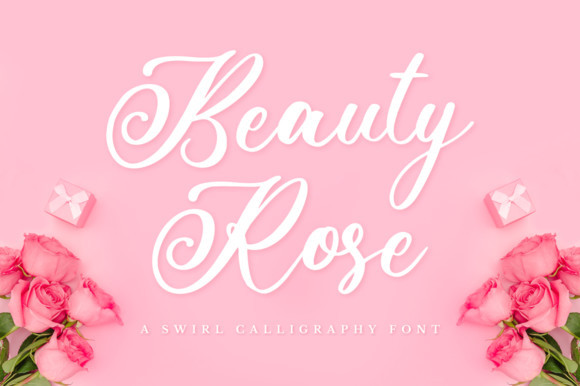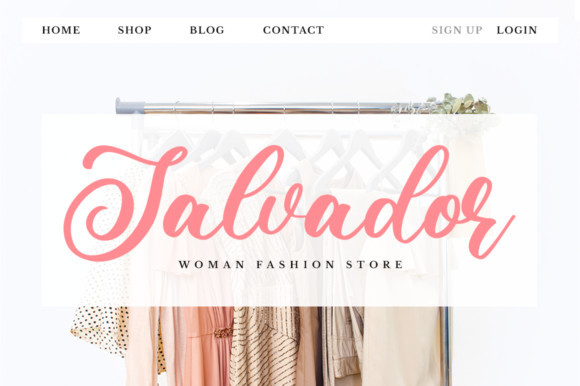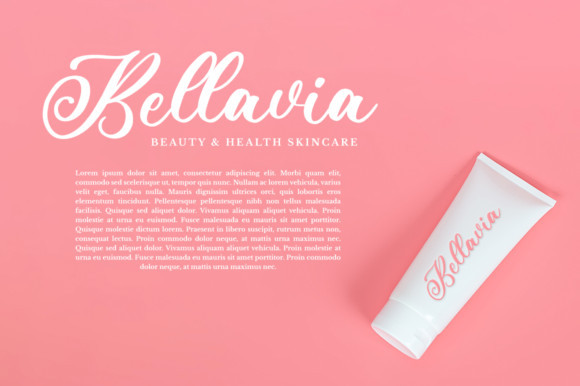
Beauty Rose Font
Beauty Rose is an enchanting handwritten font. This versatile script font has a wide spectrum of applications ranging from greeting cards to headlines and is guaranteed to add a romantic feel to your next project.